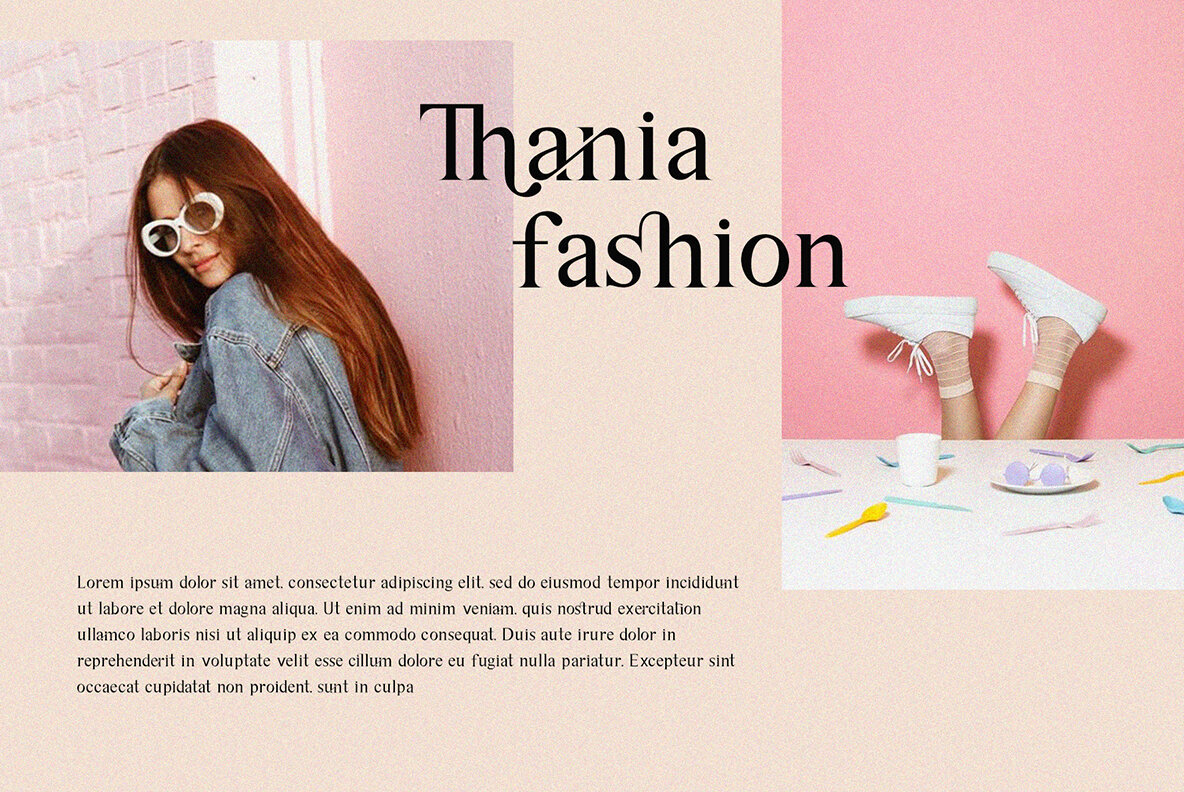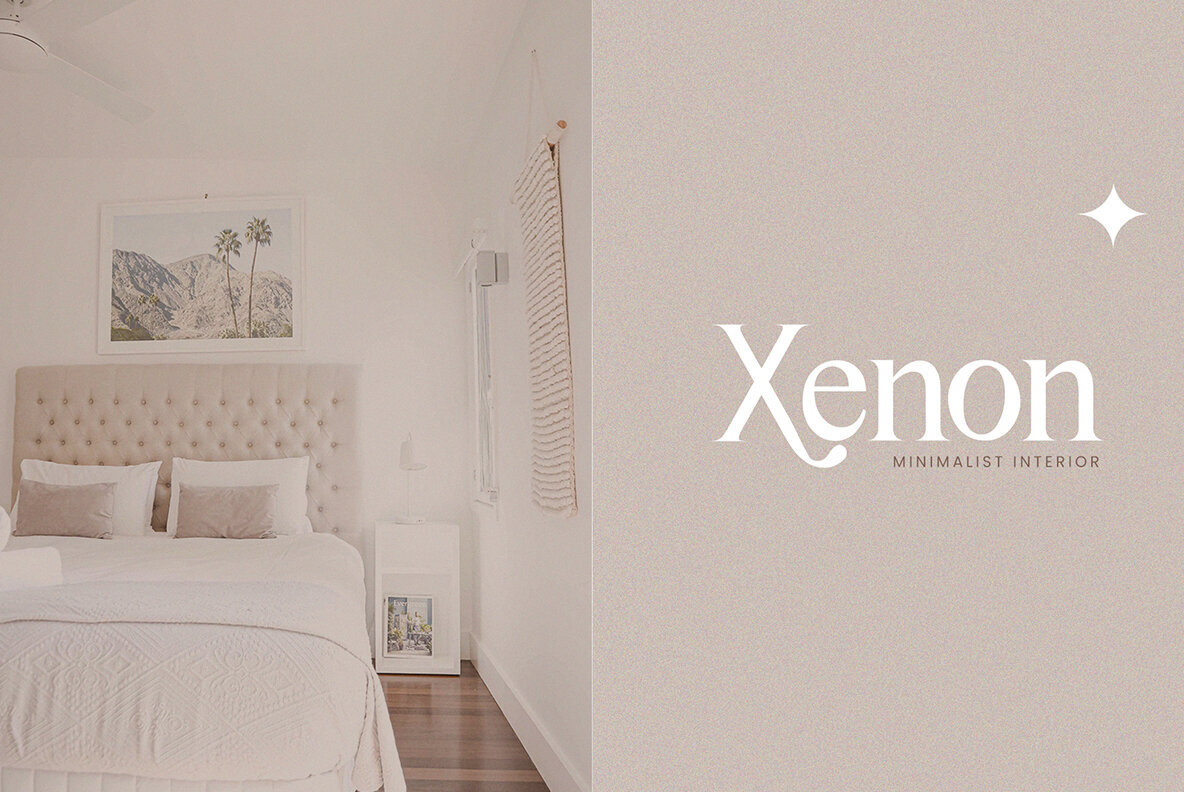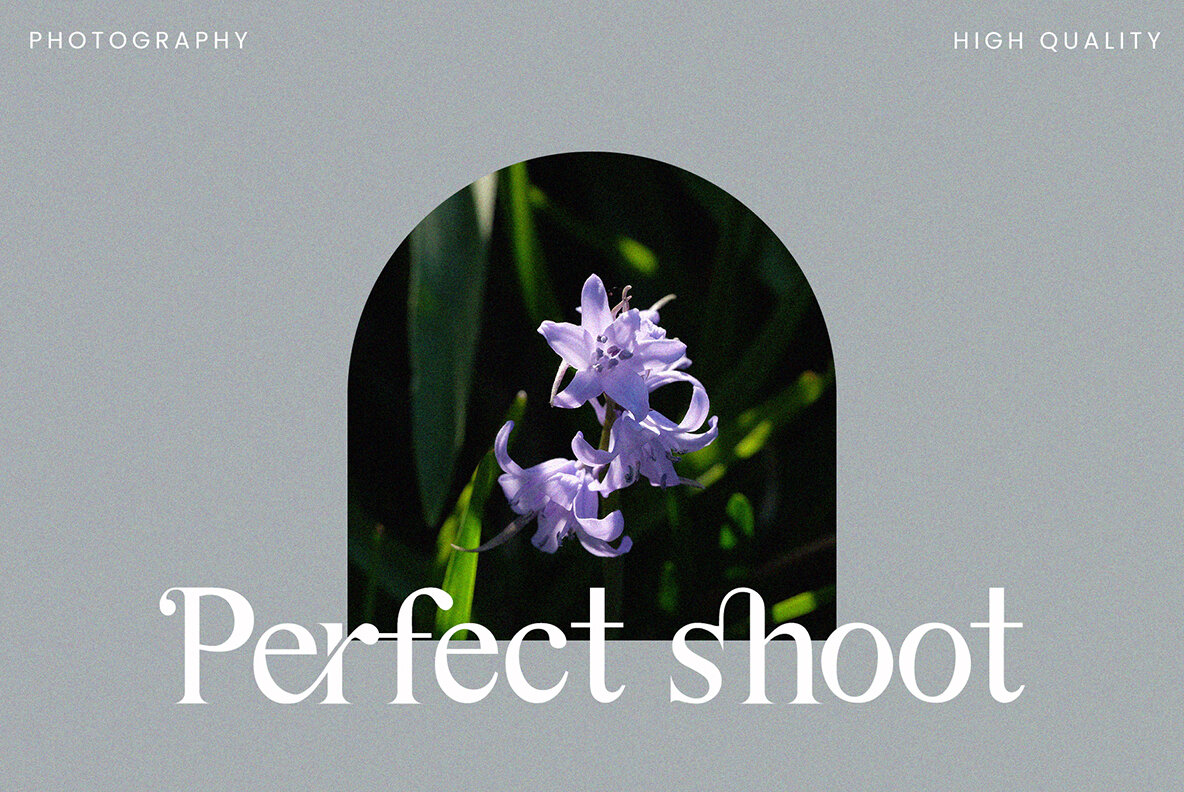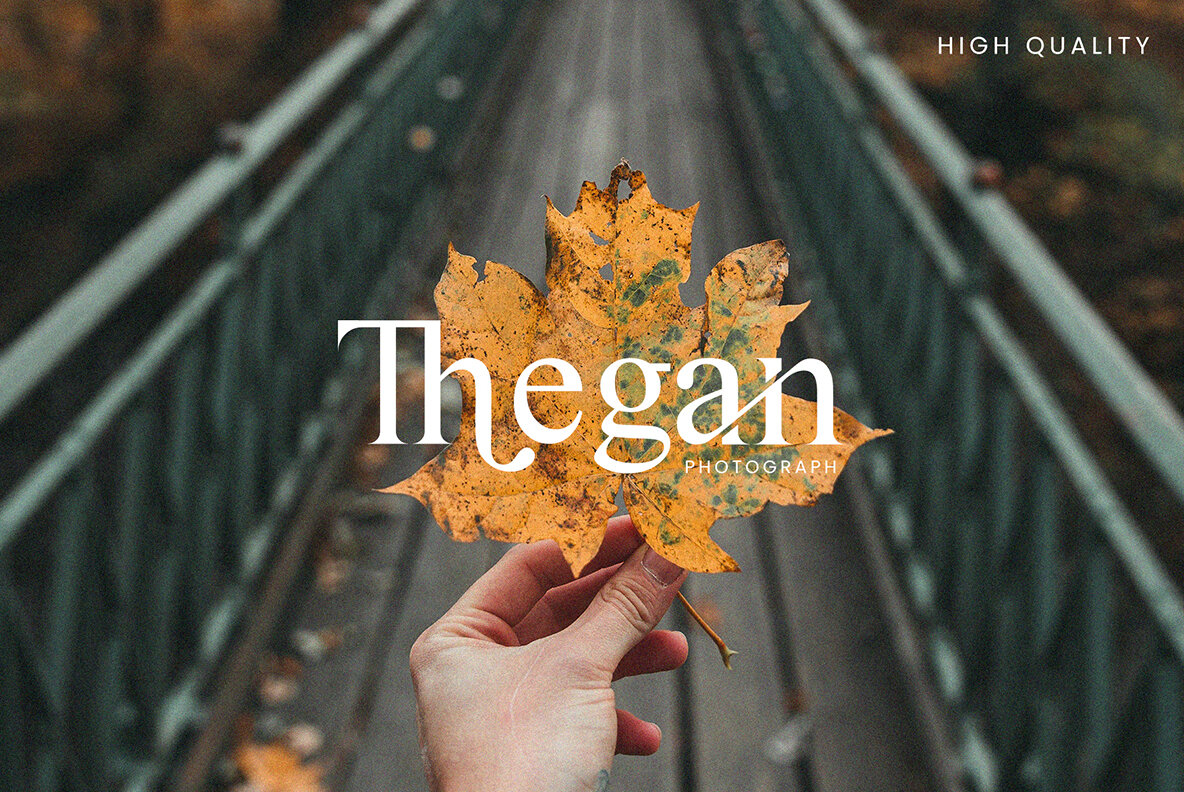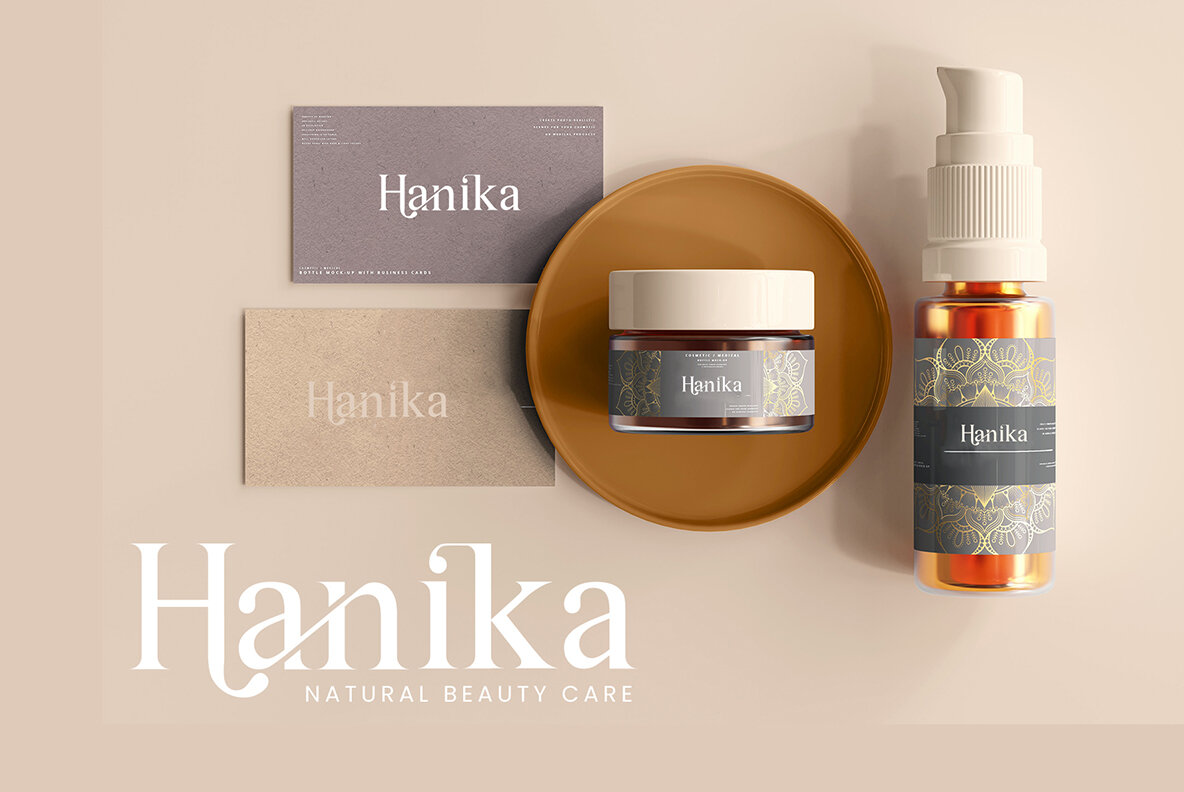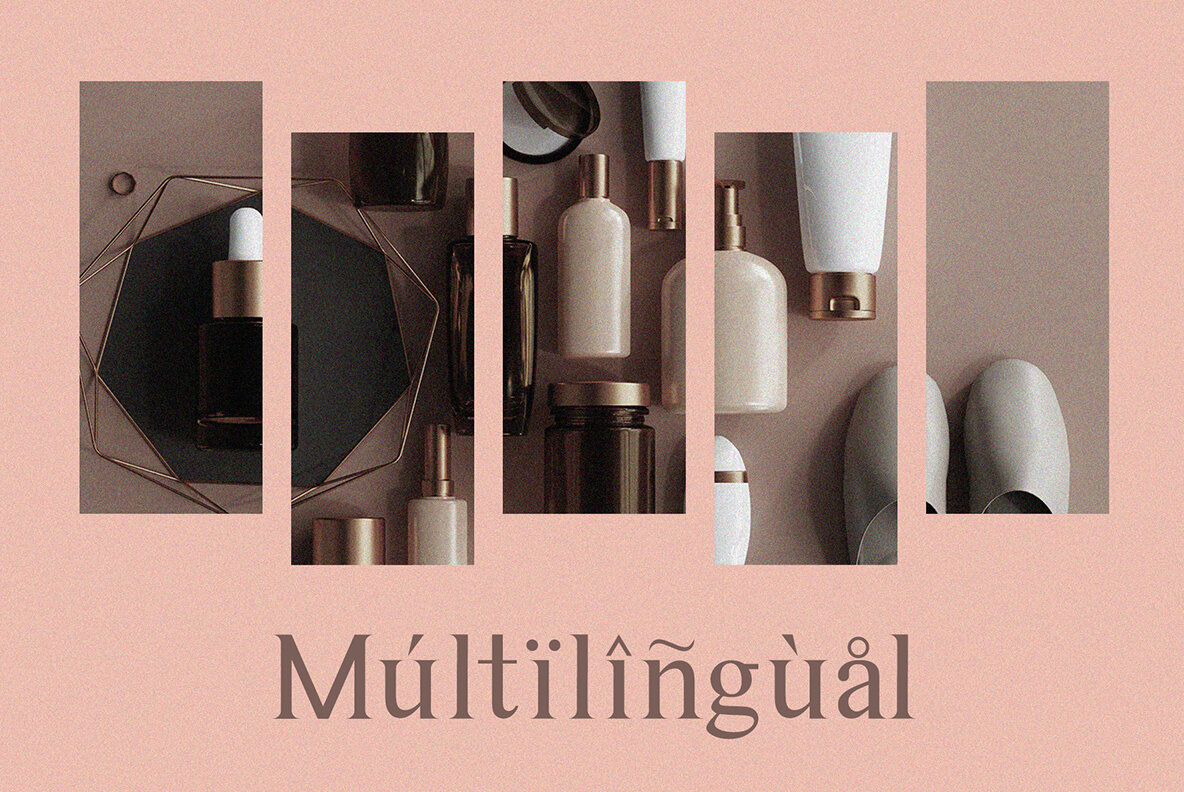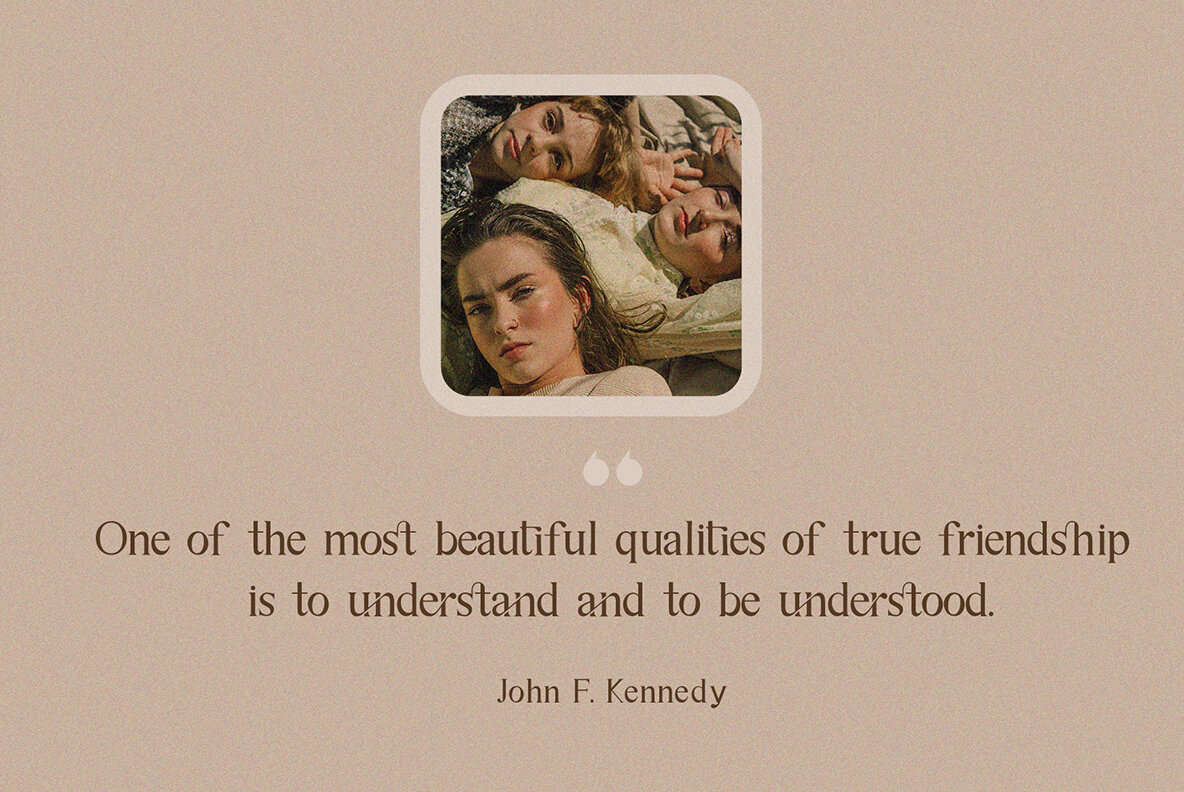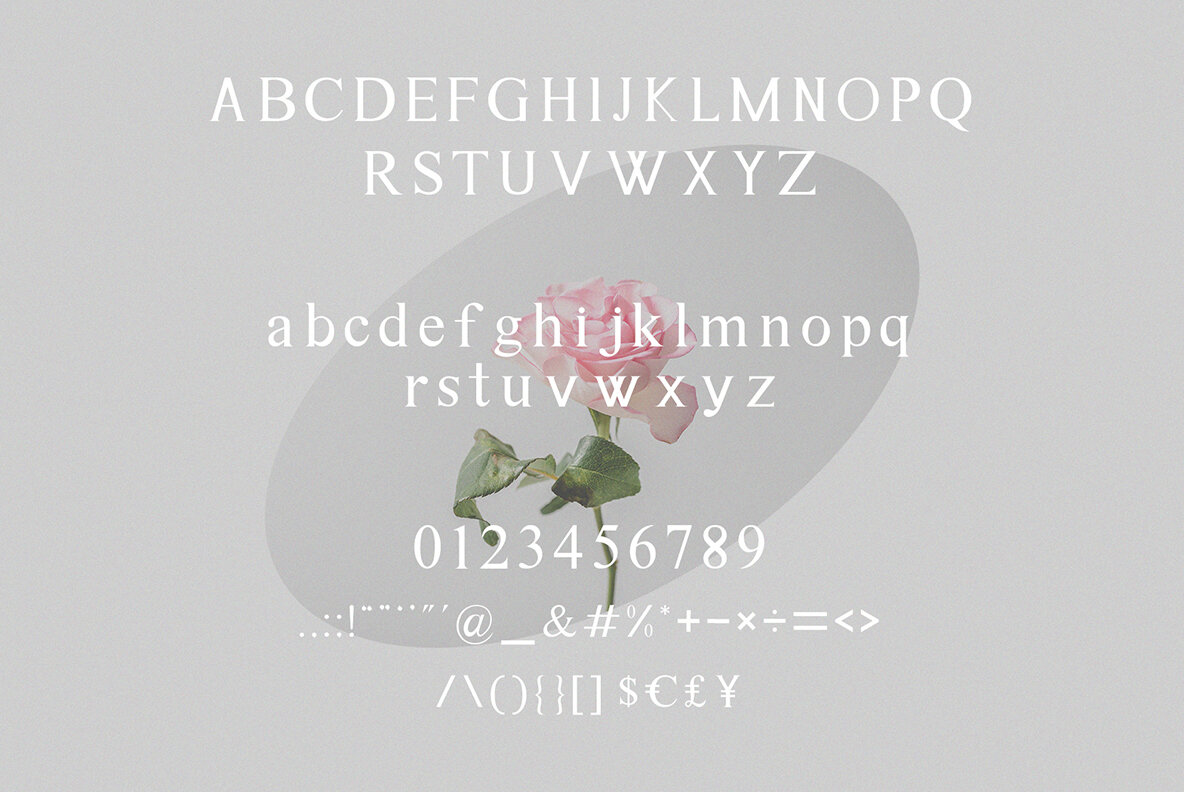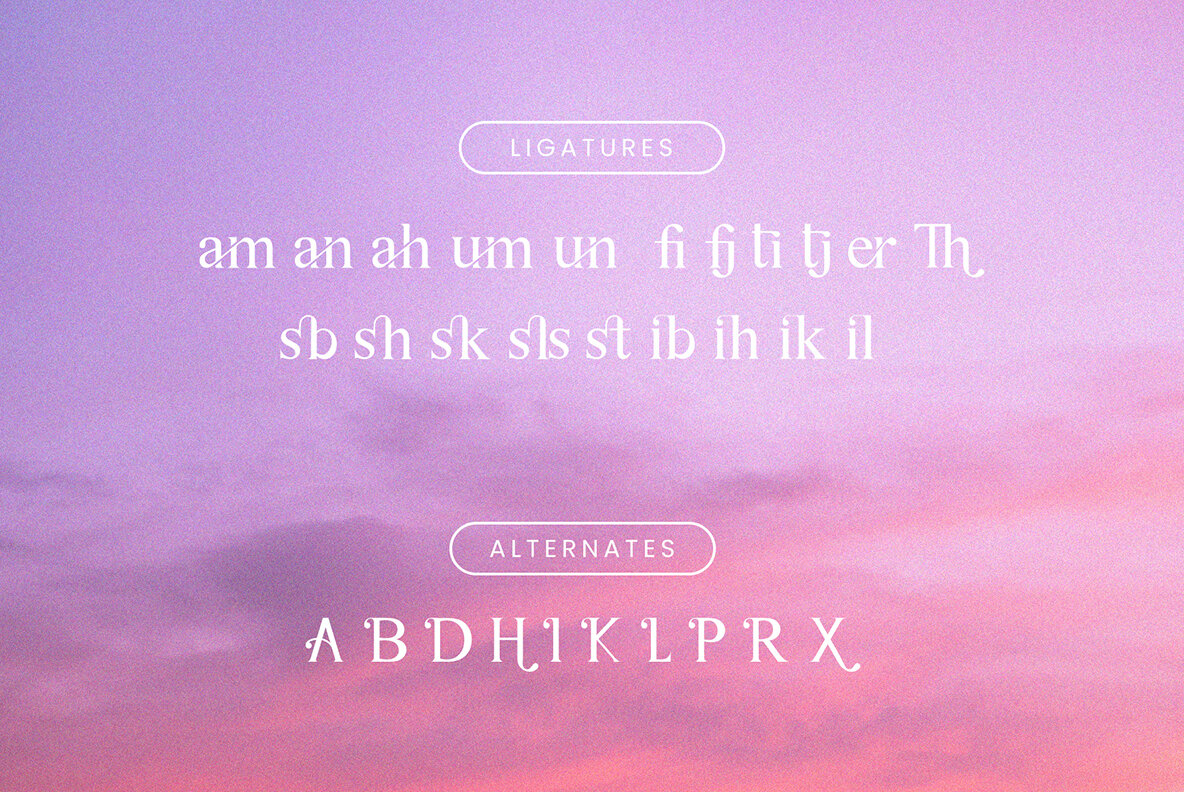
Astina Font
Astina Regular
Astina Serif is a balanced, smooth, elegant and stylish serif font. He has a beautiful character. It fits perfectly with invitation card designs, company logos, movie titles, movie names, business cards, book titles, brand names and various other designs. Astina Serif is a subtle serif font that exudes sophistication and elegance. Its stylish alternations and ligatures make this font the perfect partner for any project.